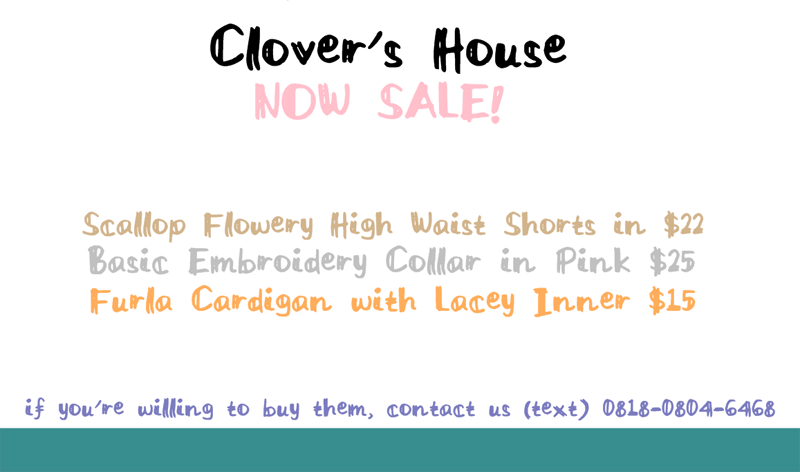
Font name: | Doppia Linea |
Author: | Cindyyo |
Doppia Linea in Italy means 'Double Lines' Characteristic on the double lines fonts. P.S: if they're too bold, please turn off the 'bold' button in your application! enjoy! |